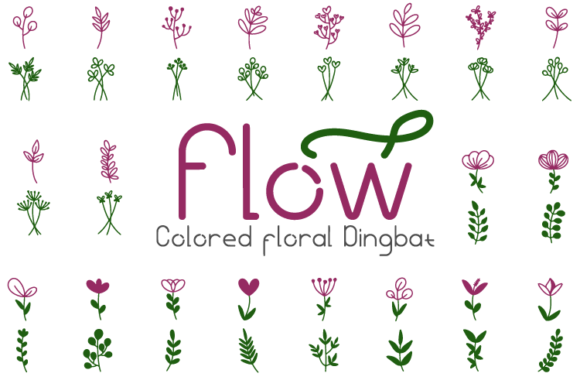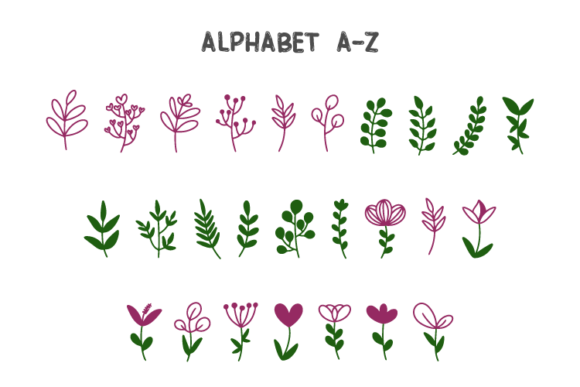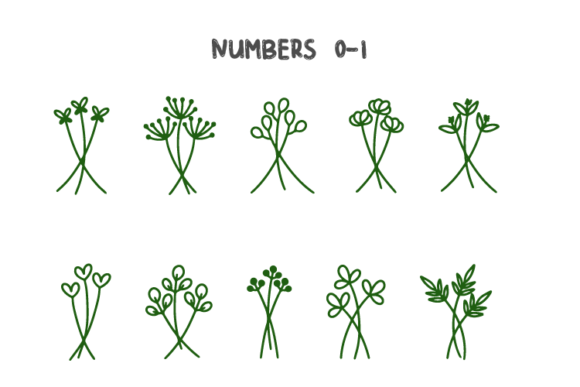
About Flow Font
Absolutely! “Flow” is a colorful floral dingbat font that can bring a vibrant and artistic touch to your designs. With its unique and intricate floral elements, this font is perfect for adding a burst of creativity to your projects.
The “Flow” font offers a wide range of floral-inspired symbols and ornaments that can be used in various ways. Whether you’re working on digital designs, print materials, crafts, or any other creative project, this font provides a versatile set of options to enhance your visuals.
By incorporating the “Flow” font into your design workflow, you can create spectacular and eye-catching designs. The colorful floral elements can be used to embellish typography, borders, backgrounds, or as standalone decorative accents.
The floral dingbats in the “Flow” font can be mixed and matched with your project ideas to create visually stunning compositions. They can be used to create custom patterns, wreaths, frames, or even to add a touch of elegance to your text-based designs.
When working with the “Flow” font, consider the color palette of your design and how the vibrant floral elements can complement or contrast with it. The wide range of colors available in the font allows for endless possibilities and creative combinations.
Whether you’re designing invitations, posters, greeting cards, social media graphics, or any other creative project, the “Flow” font can help you achieve a fresh and artistic look. Its colorful floral dingbats can evoke a sense of nature, beauty, and joy, adding a touch of whimsy and elegance to your designs.
Don’t be afraid to experiment and play around with different arrangements and combinations of the floral elements. Use them to create unique compositions and give your designs a personal and artistic touch.
Additionally, the “Flow” font can be a great asset for crafts and DIY projects. You can use it to create custom stickers, labels, or even decorate physical objects like mugs, notebooks, or gift boxes. The colorful floral elements will make your creations stand out and add a touch of creativity and beauty.
In summary, “Flow” is a colorful floral dingbat font that can bring a burst of creativity to your designs. Mix and match the unique floral elements with your project ideas and let your imagination flow. Whether you’re working on digital designs or physical crafts, this font will help you create spectacular and visually stunning compositions.